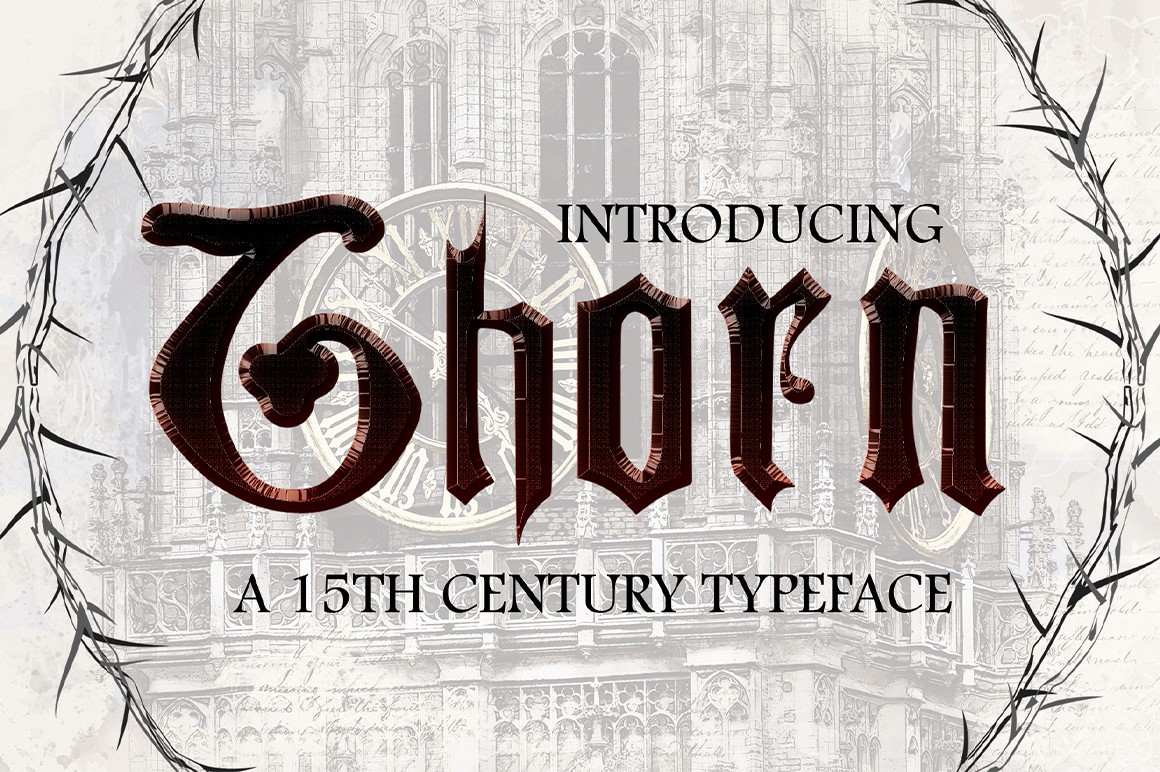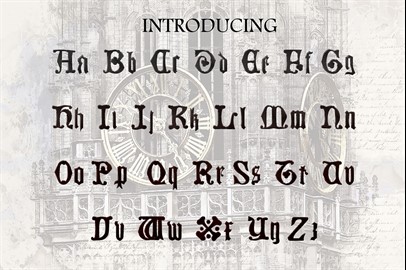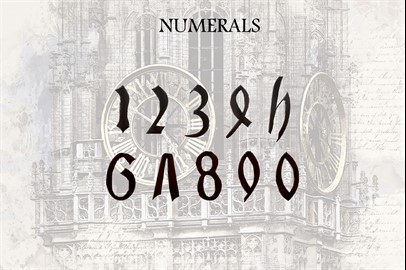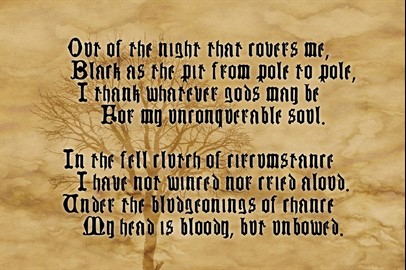
THORN, a Blackletter Typeface
THORN is a 15th-century typeface
that has been hand drawn and made into a font to give you a very authentic handwritten feel. A typeface brought back from the past to give life to your projects, this typeface comes with upper, lowercase and numbers. This style is now mostly used for decorative purposes, for example, to evoke an old word classical feel. It can also be used to evoke a heavy metal feeling.